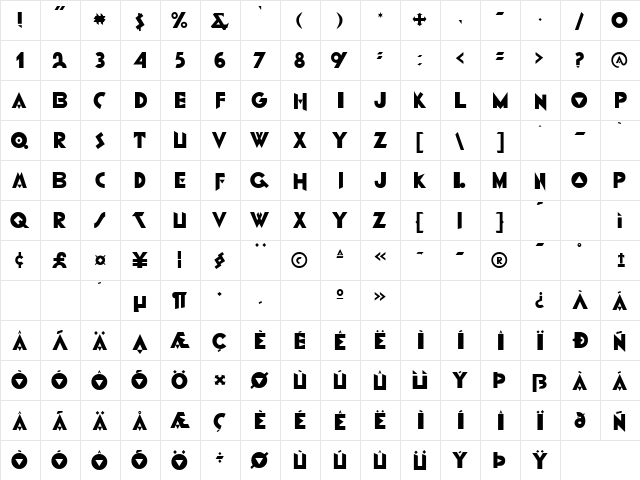
Futurismo Regular Font Preview
Futurismo Regular
Futurismo Regular Font Details
Design Context for Futurismo Typeface
Futurismo channels digital-age aesthetics through its sharp, structured letterforms — ideal for brands that want to signal innovation.
Pro Tip: Use Futurismo in combination with a neutral sans for body text. Let it define the brand voice in headlines while keeping reading comfortable elsewhere.